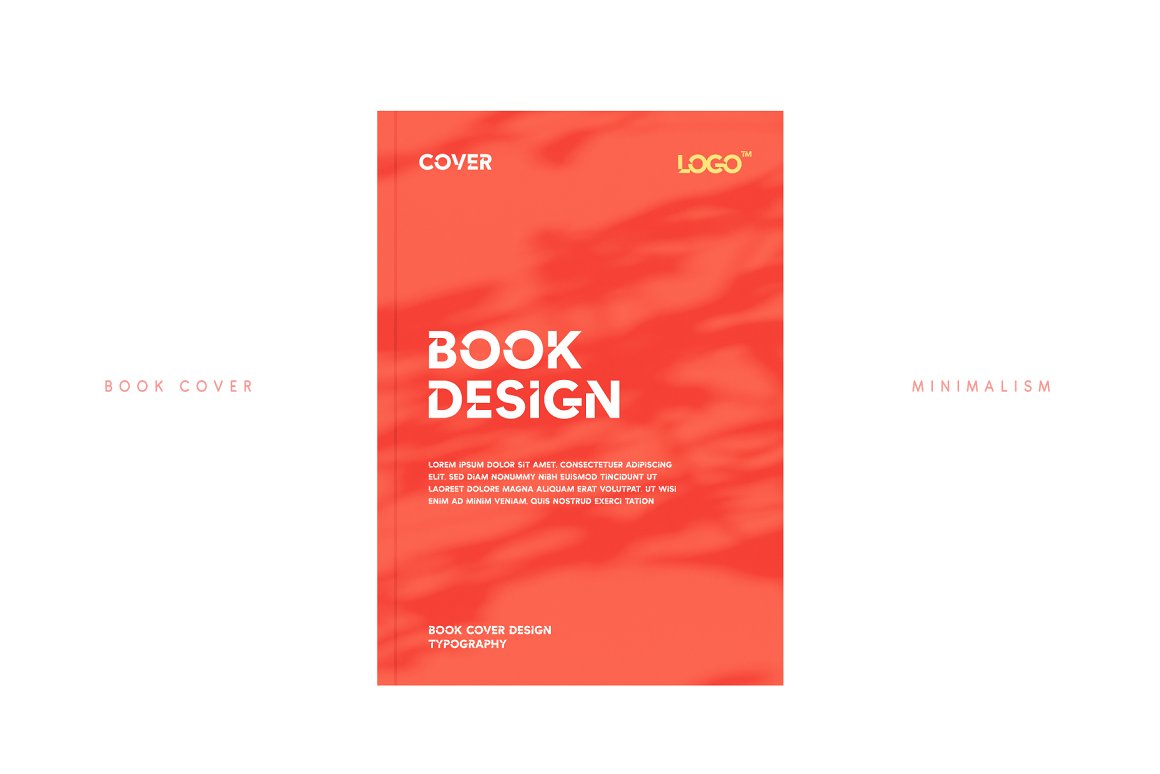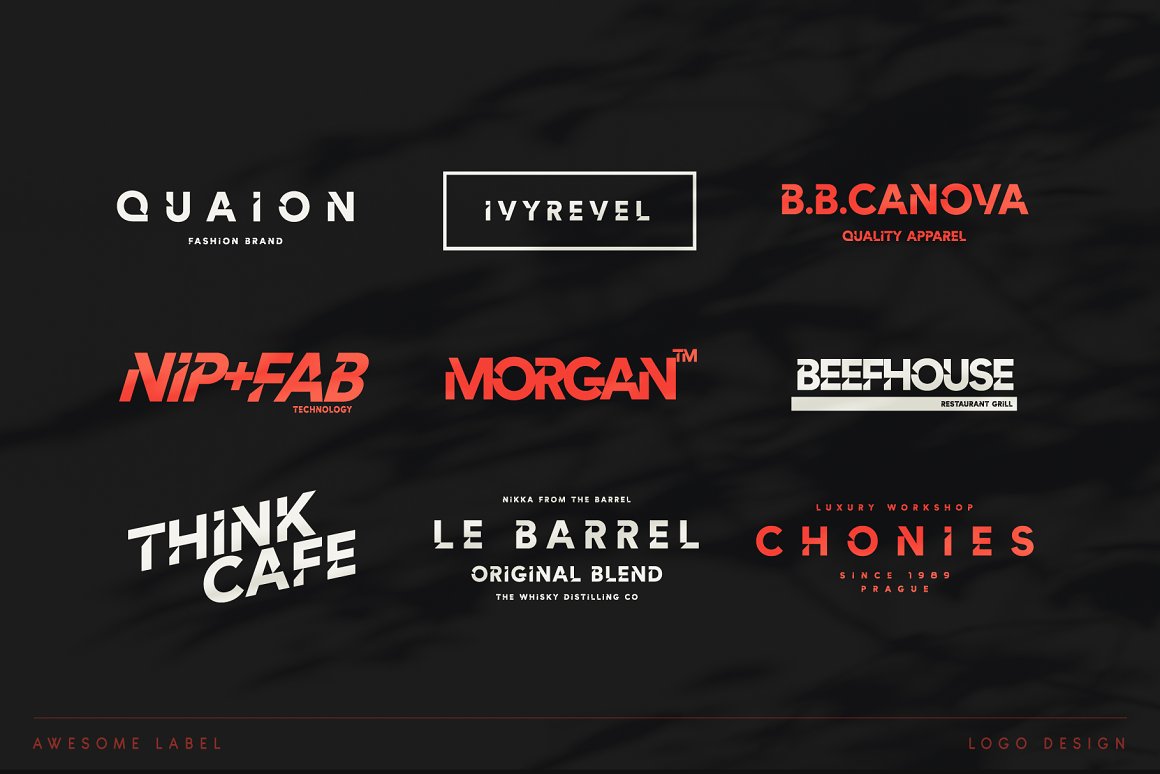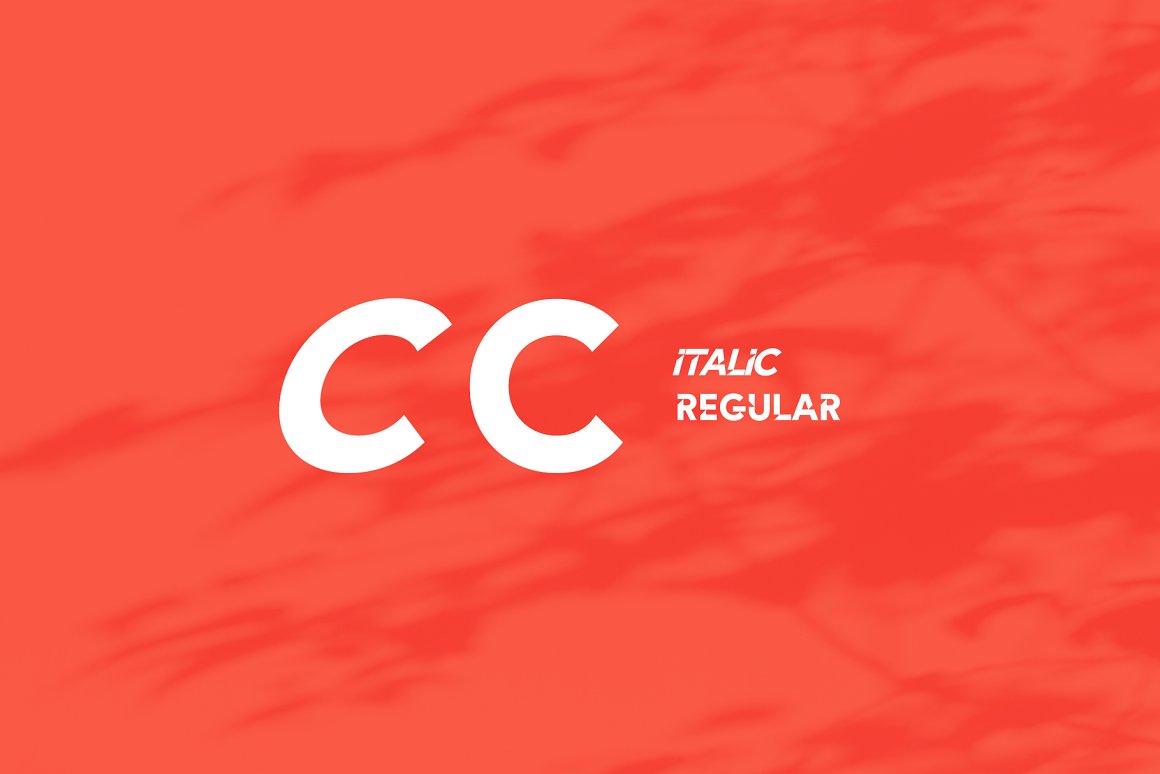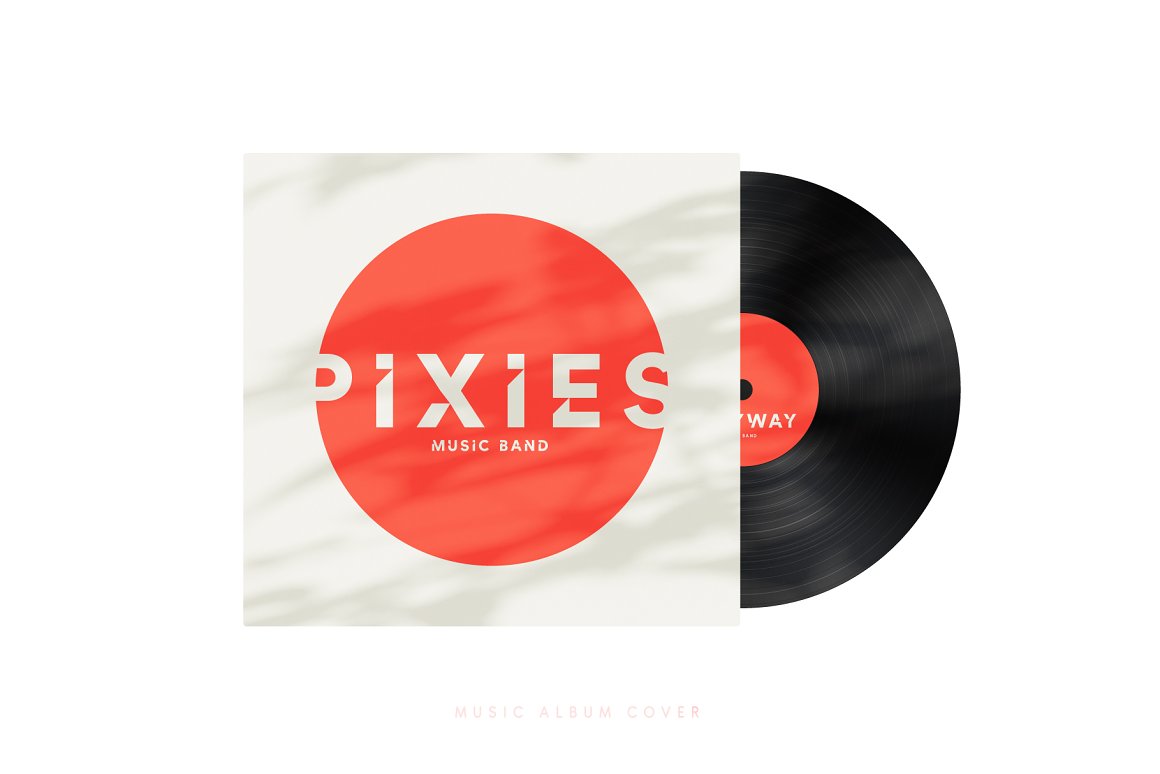
Angles Font
Angles Font is a geometrically constructed sans serif designed for display use. This bold font inspired by current trends in headline typography for digital. It has a smooth, elegant quality that lends itself to projects based around the themes of beauty and health. It also works well for luxury items, perhaps for food packaging, hospitality or service branding.